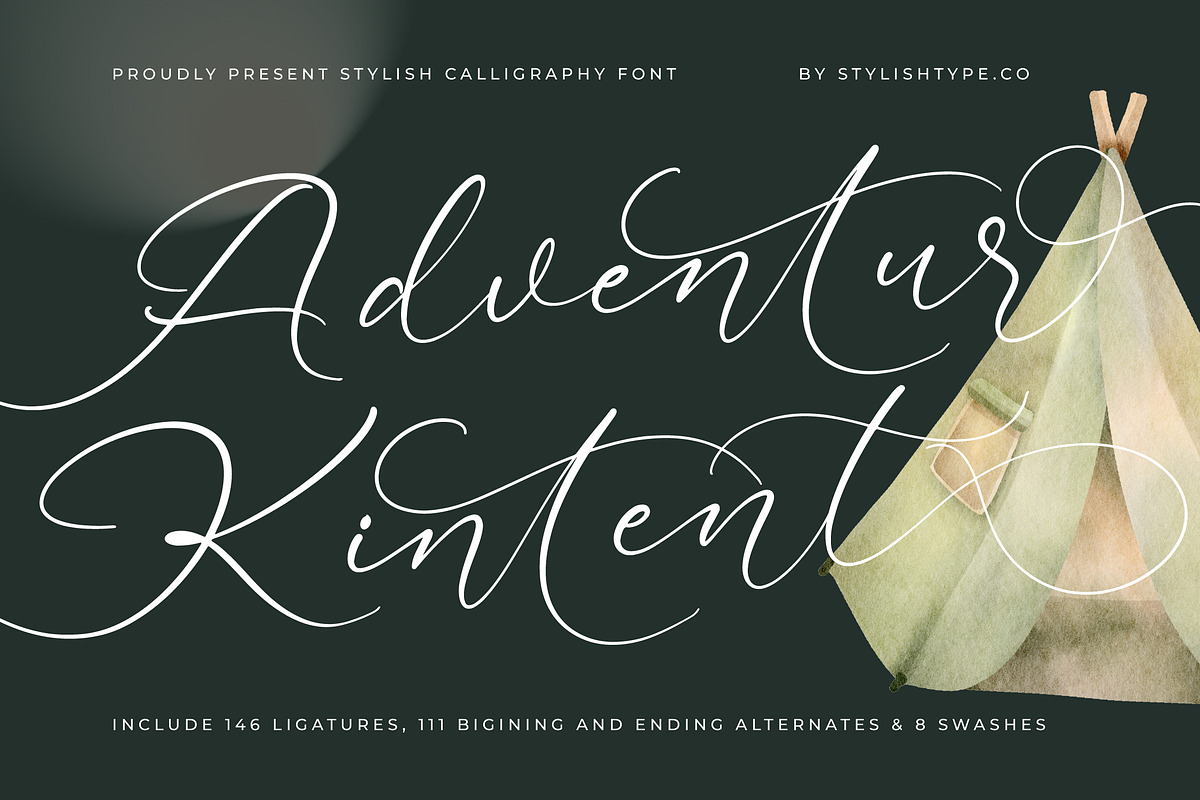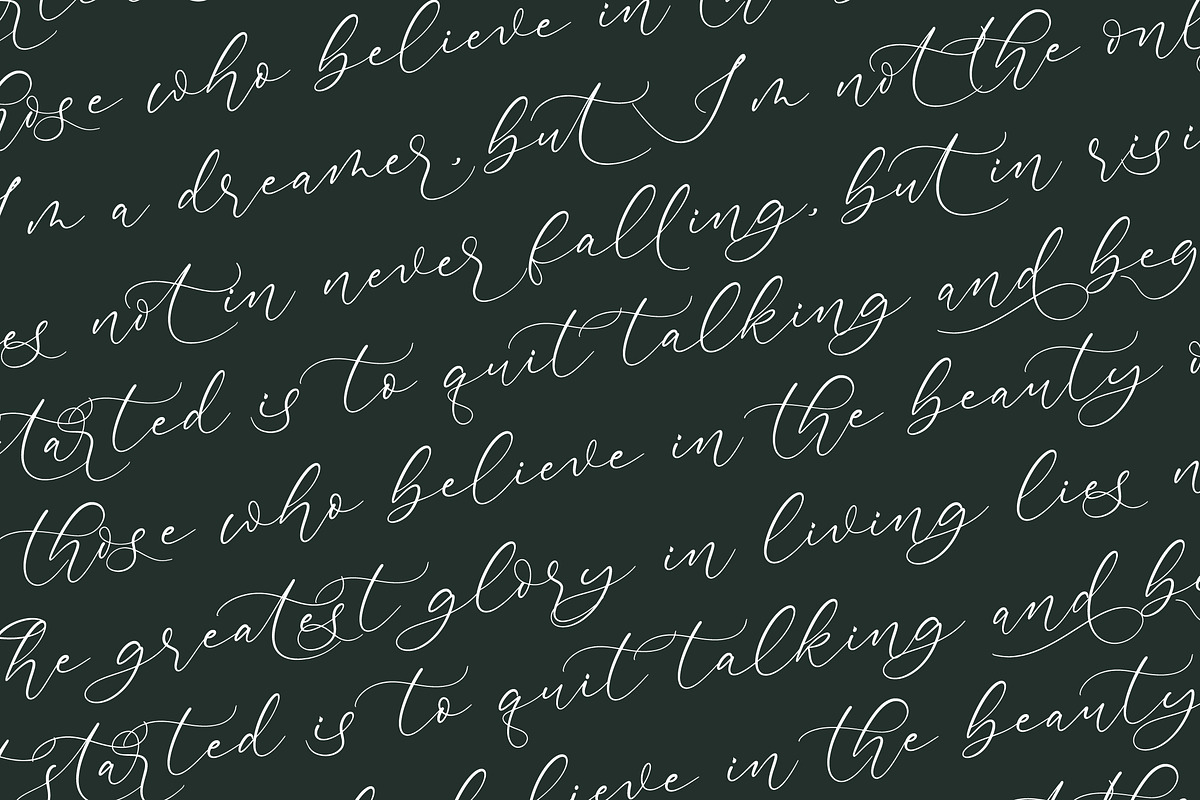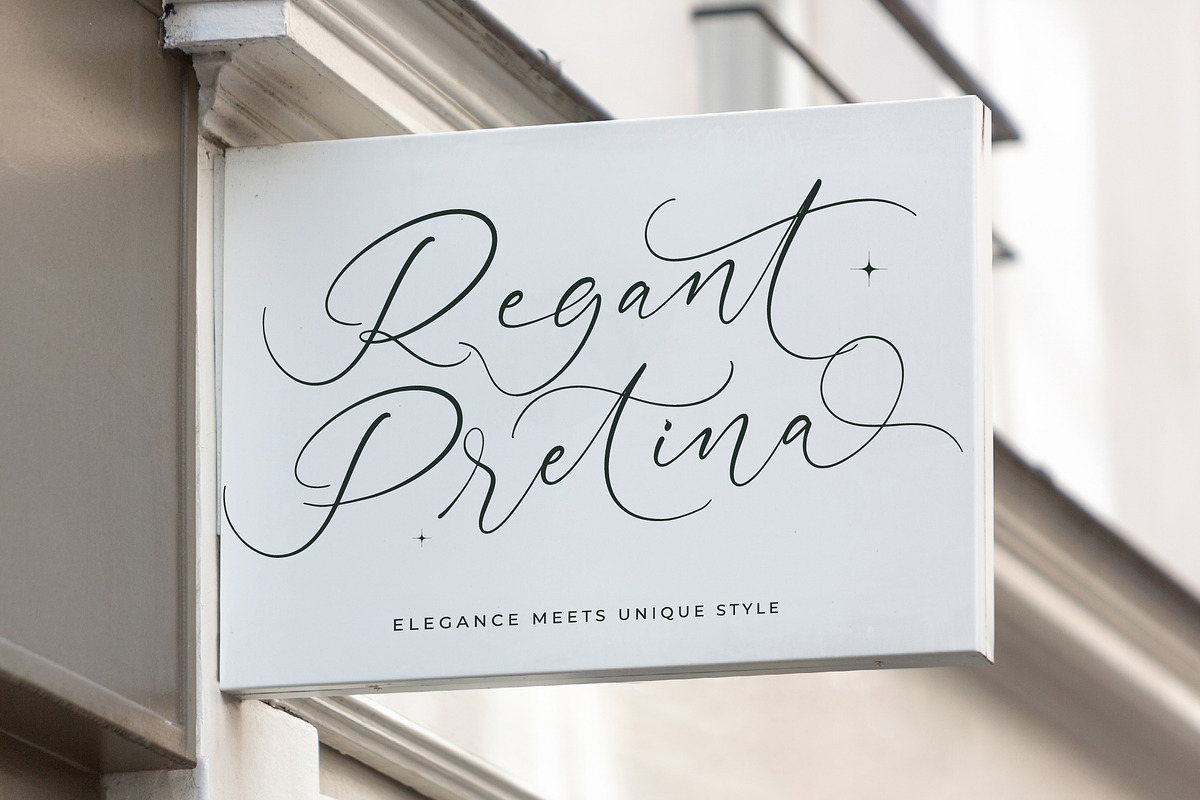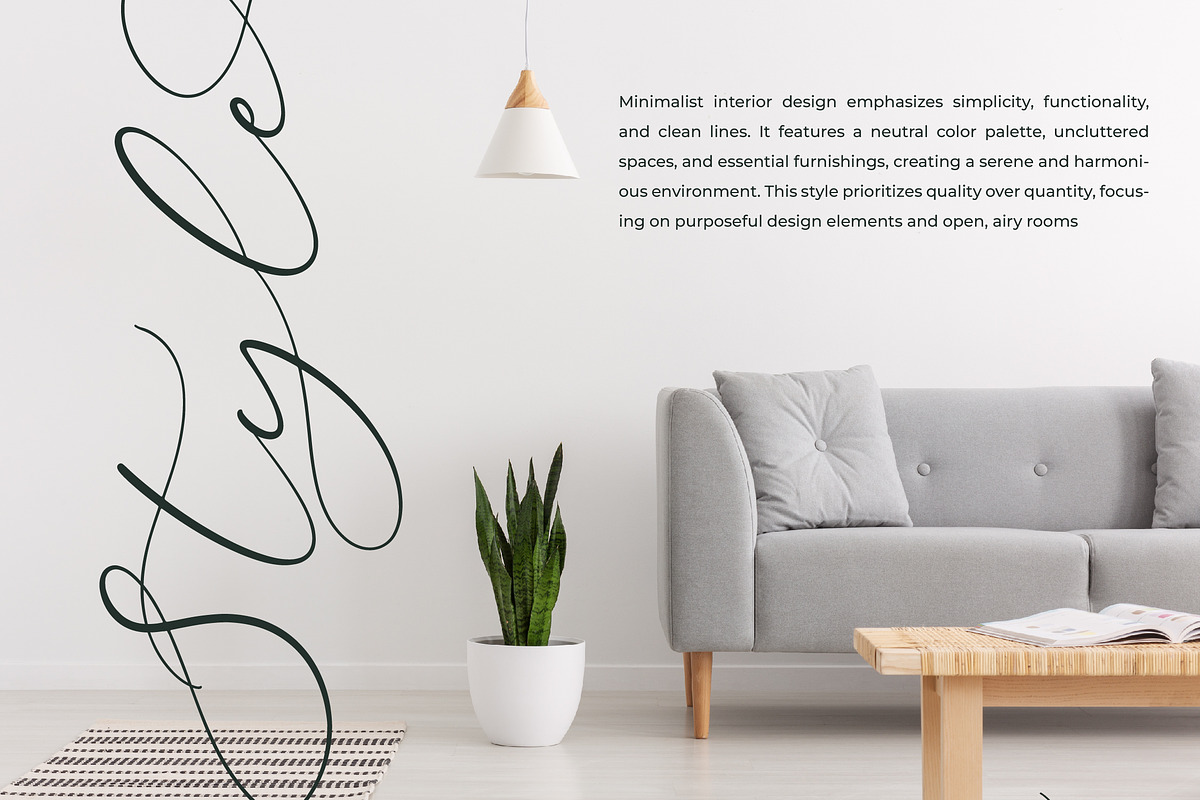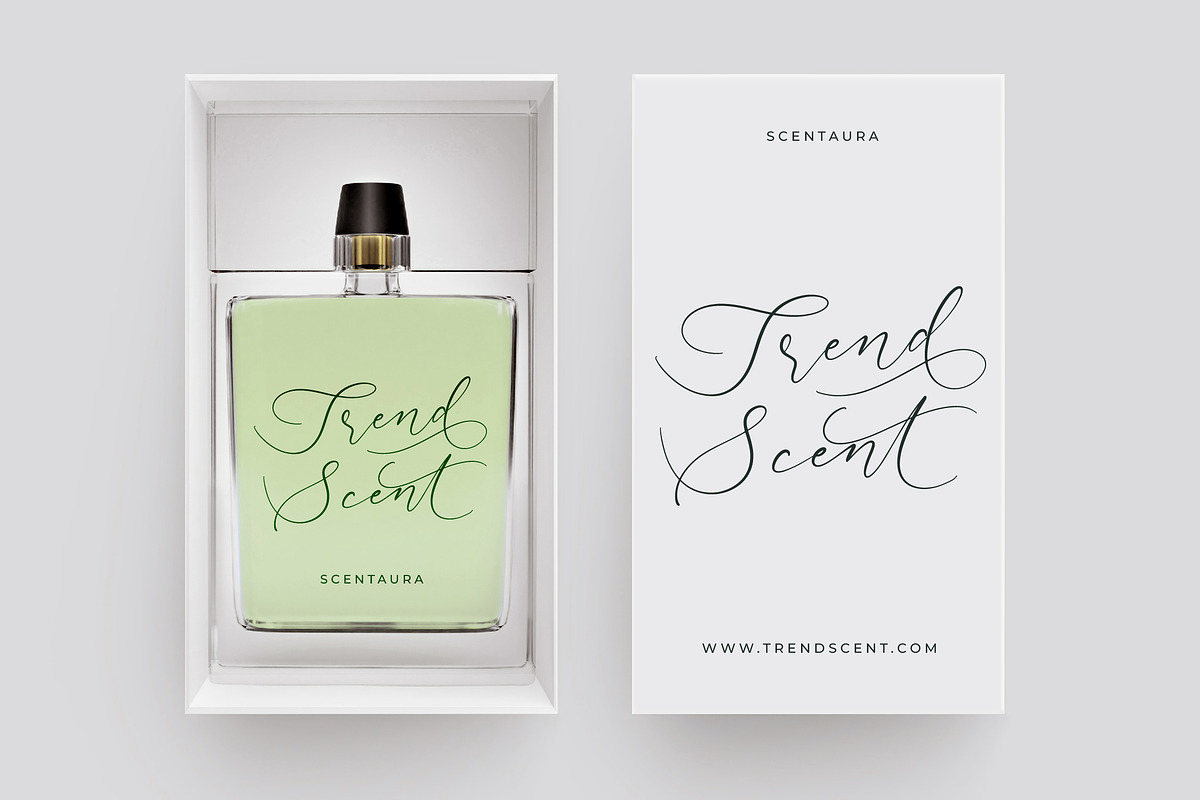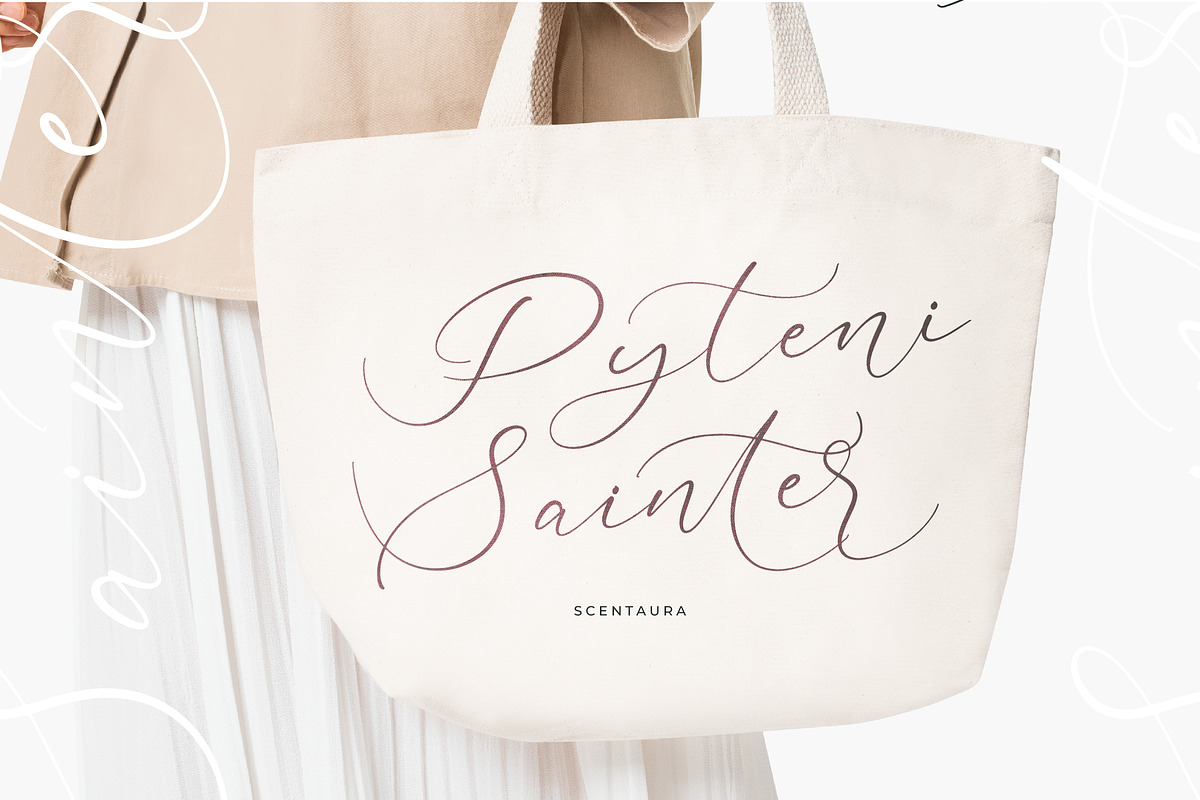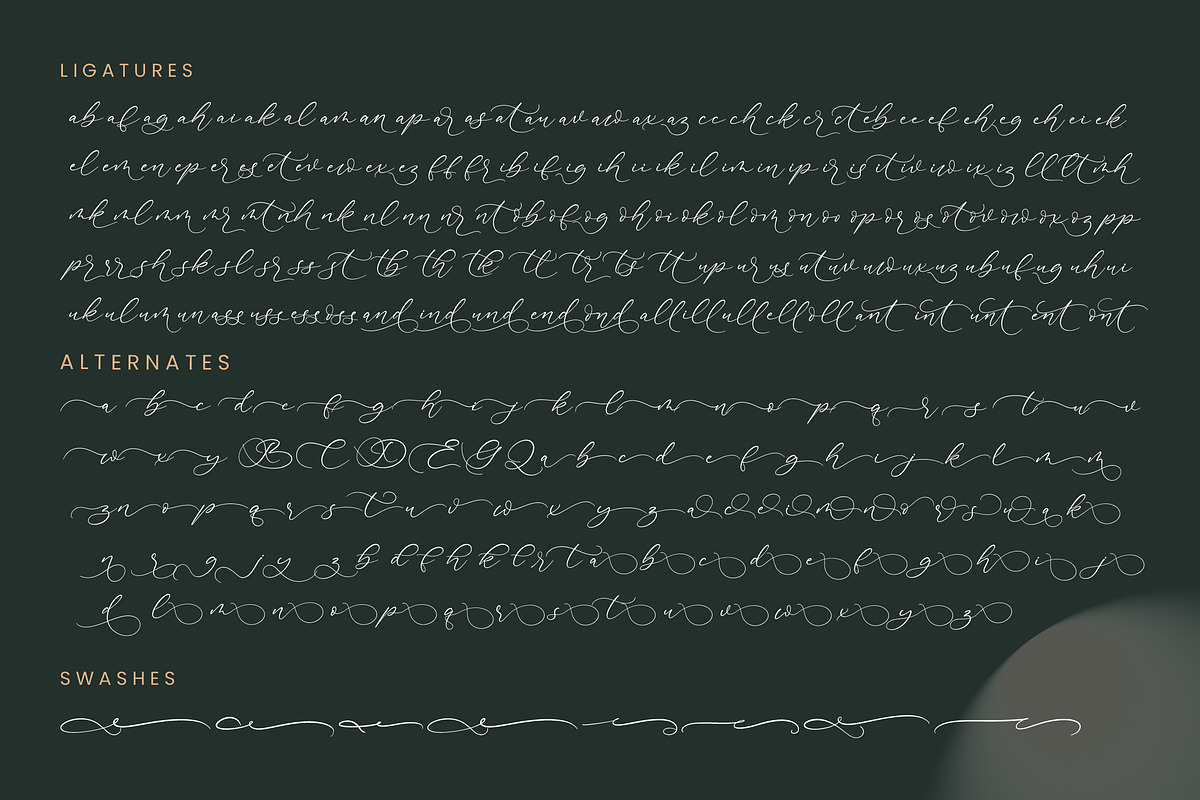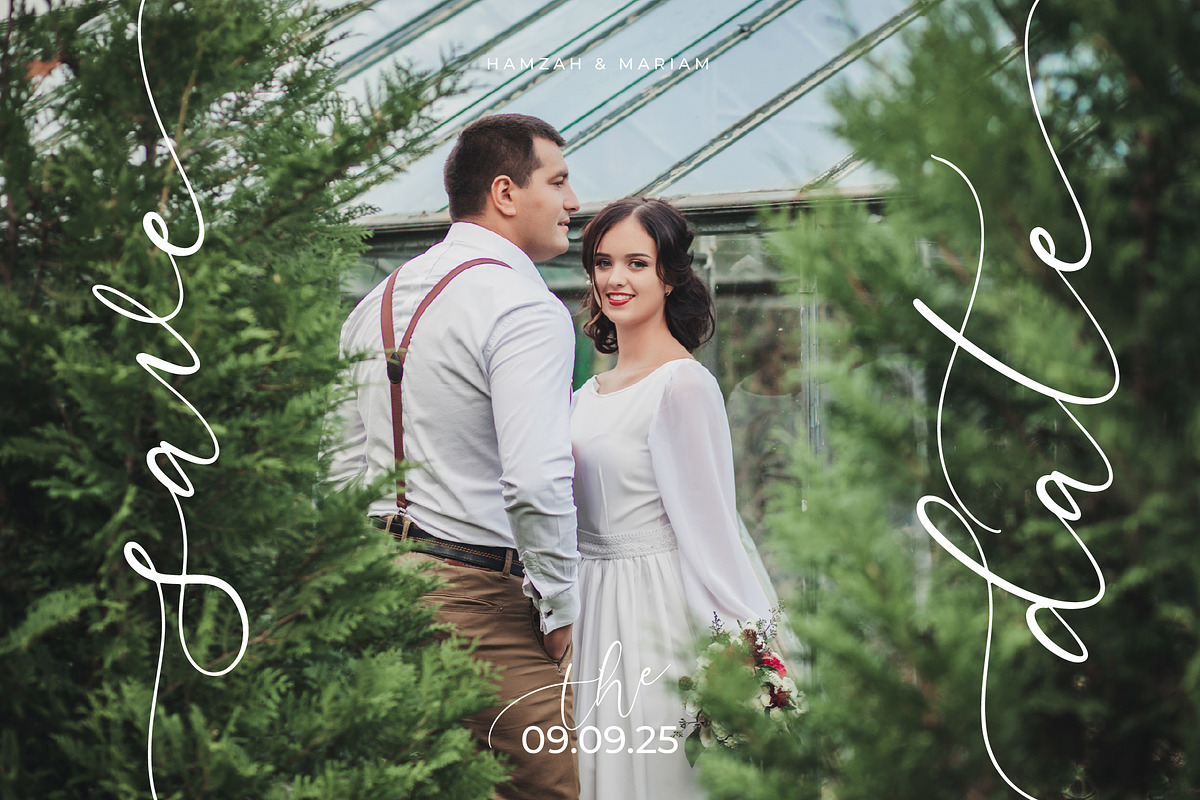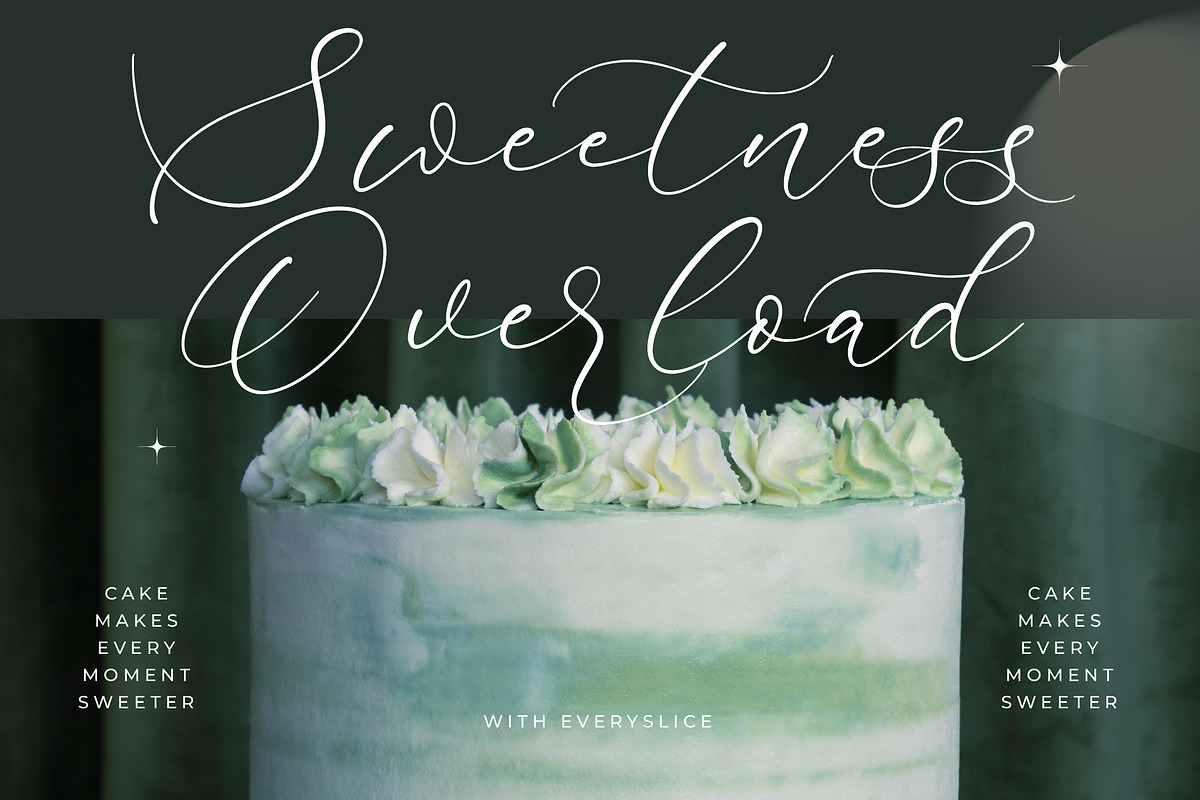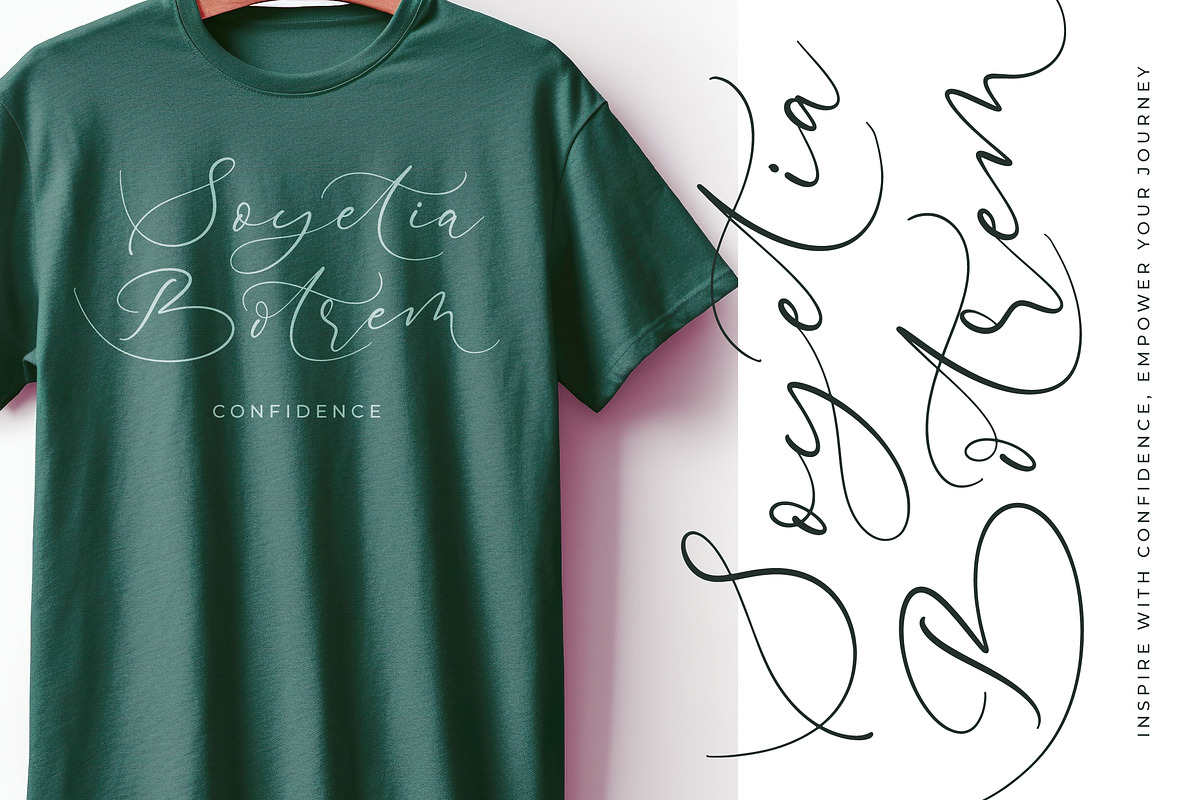
Adventur Kintent Stylish Calligraphy
Adventur Kintent - Stylish Calligraphy Font , from Stylishtype.Co , Suitable for any projects such as: logos, branding projects, homeware designs, product packaging, mugs, quotes, posters, shopping bags, t-shirts, book covers, name card, invitation cards, greeting cards, label, photography, watermark, special events, and all your other luxury and beautiful projects that need a Luxury Script taste.
- 146 Ligature 111 Alternates & 8 Swashes